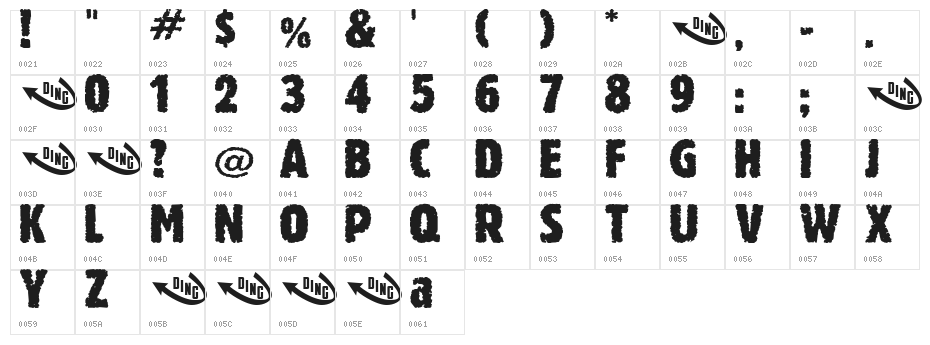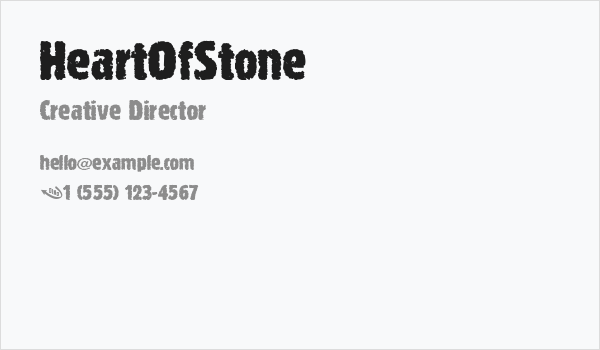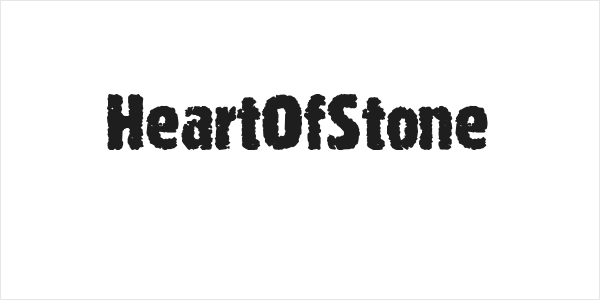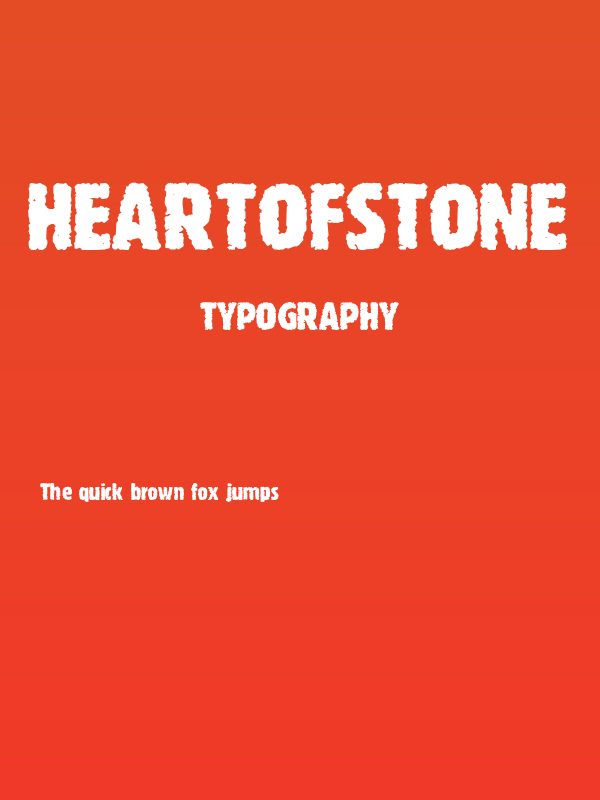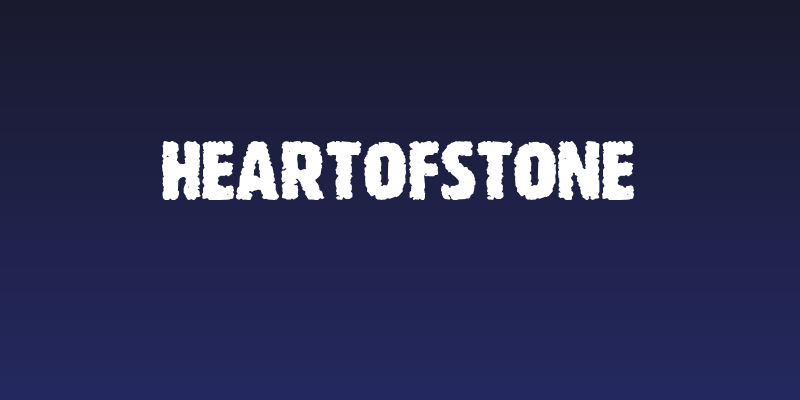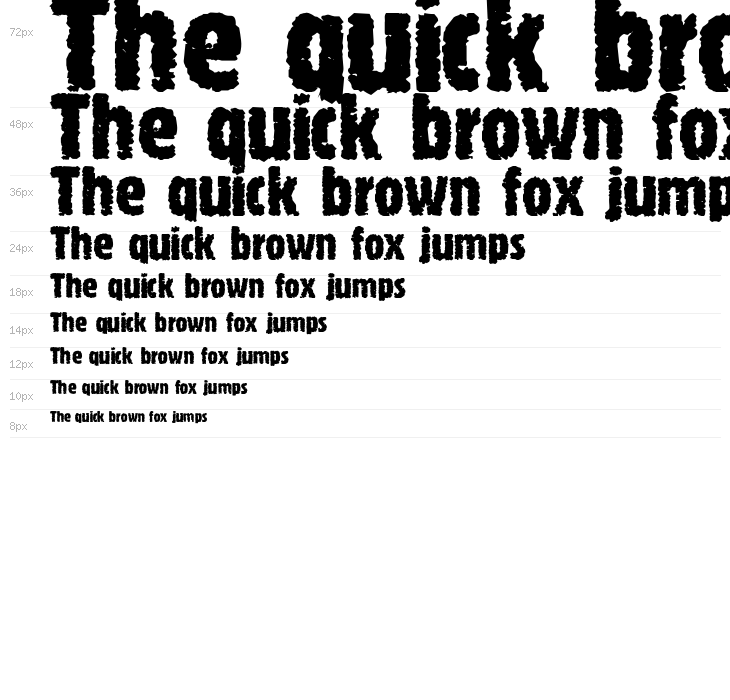
HeartOfStone Font
HeartOfStone Description
This font features a bold, rugged texture that mimics a stone-like appearance, giving it a unique and eye-catching style. The characters are heavily distressed, with irregular edges that suggest a hand-carved or eroded look. This font's boldness and texture make it stand out, ideal for projects that require a strong visual impact. The uppercase and lowercase letters maintain a consistent style, while the numbers and special characters complement the overall design. Its distinctive appearance is perfect for creative and artistic projects.
Proposed ProjectsIdeal for posters, album covers, branding, and any project needing a bold, artistic touch.